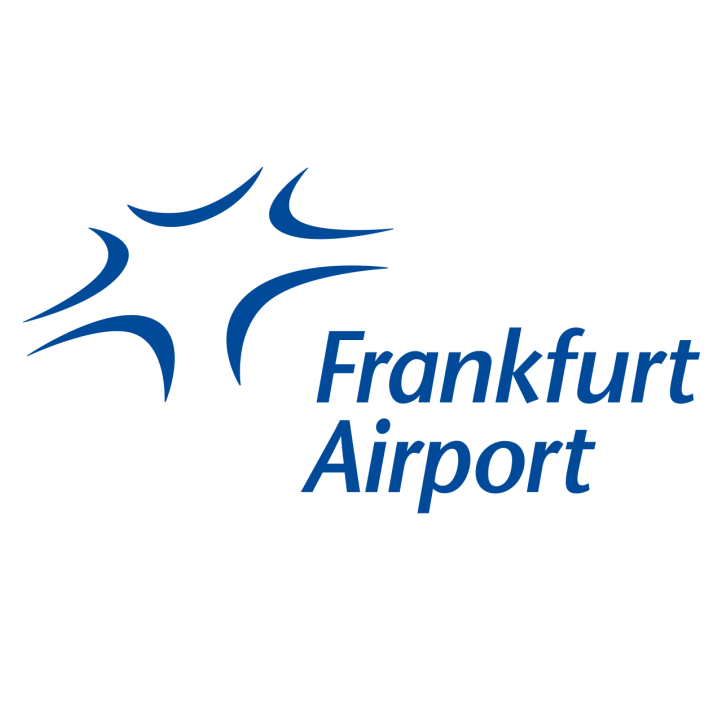
Frankfurt Airport Font
Fonts in UseFrankfurt Airport is one of the busiest airports in Europe, serving as a major hub for Lufthansa and other airlines.
The font utilized for the airport's wordmark is called Stone Sans, designed by Sumner Stone. It is classified as a humanist sans-serif typeface and belongs to the Stone font family, which also includes a serif, a sans-serif, and an informal style.